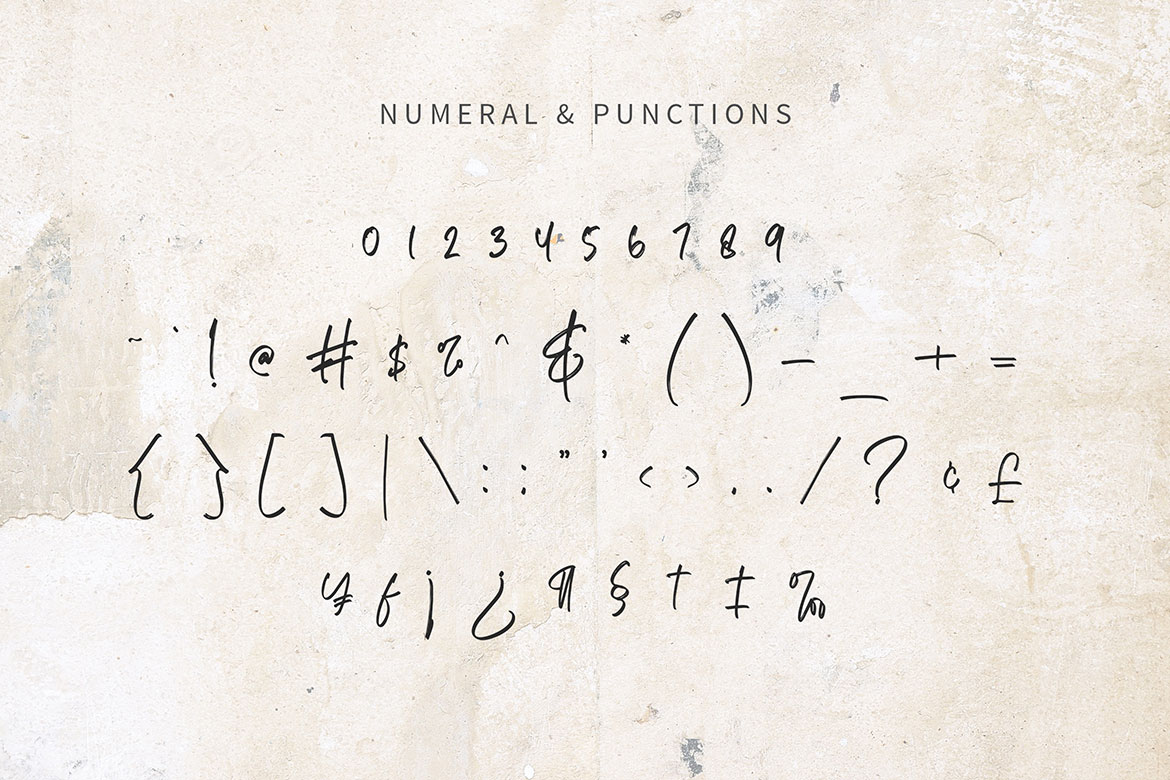
King Waller - Signature Font
King Waller is a simple signature handwritten font.ย  Great font for fashion, apparel projects, signature, album cover, logo, branding, magazine, social media, & advertisements, but also works great for other projects.
Highlight :
• Basic Latin A-Z and a-z
• Numbers
• Punctions